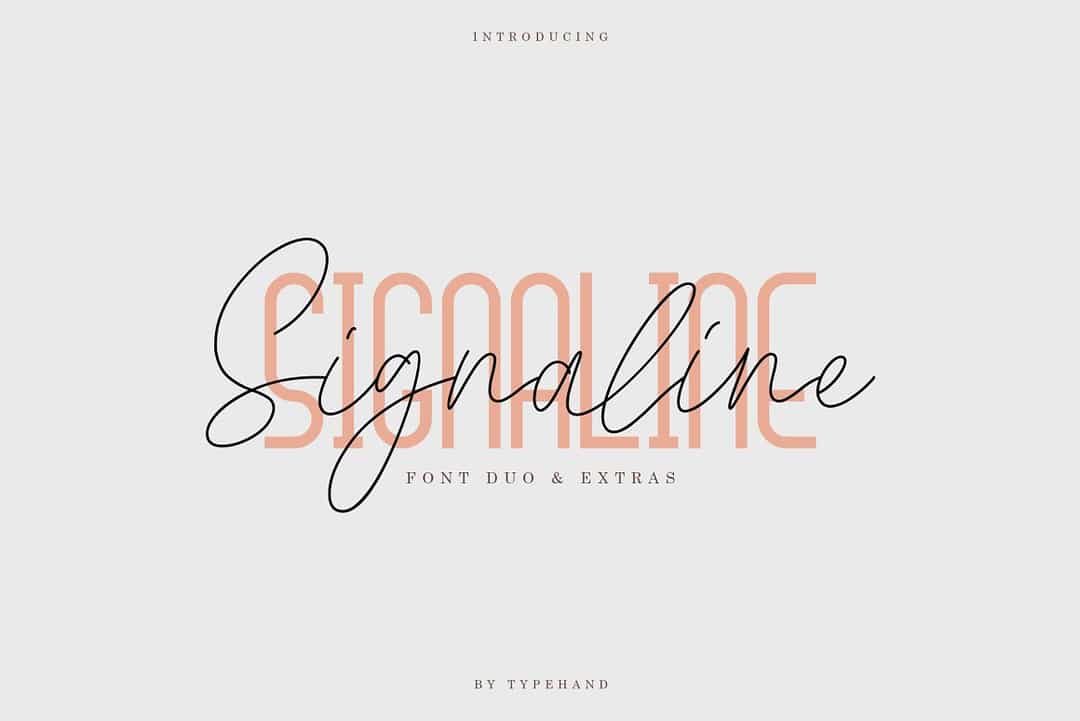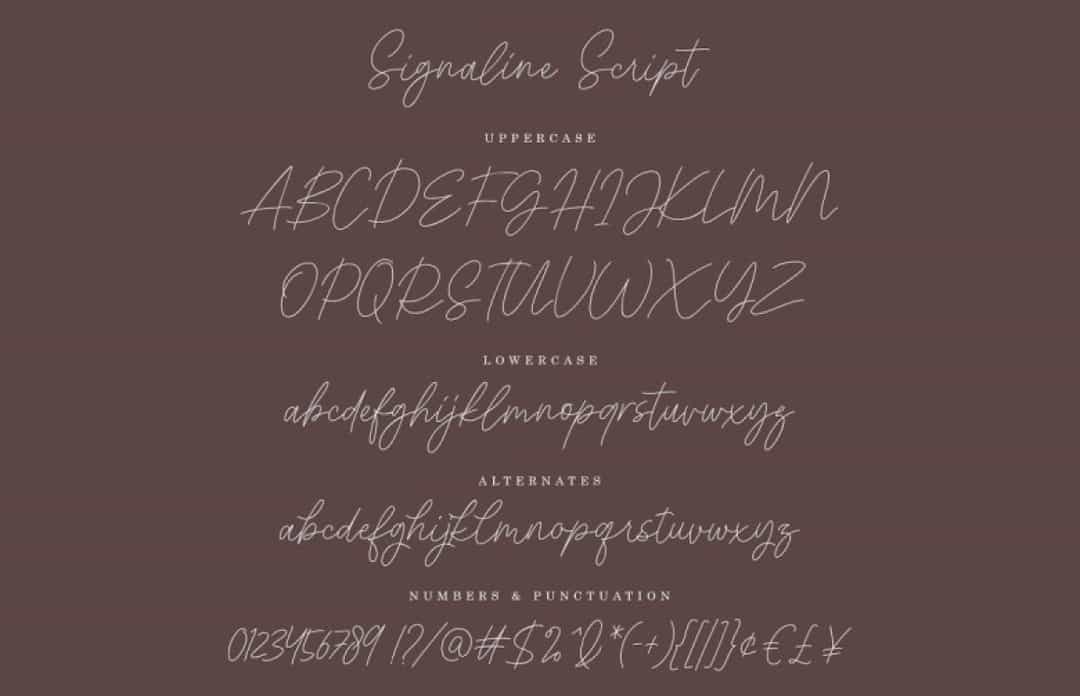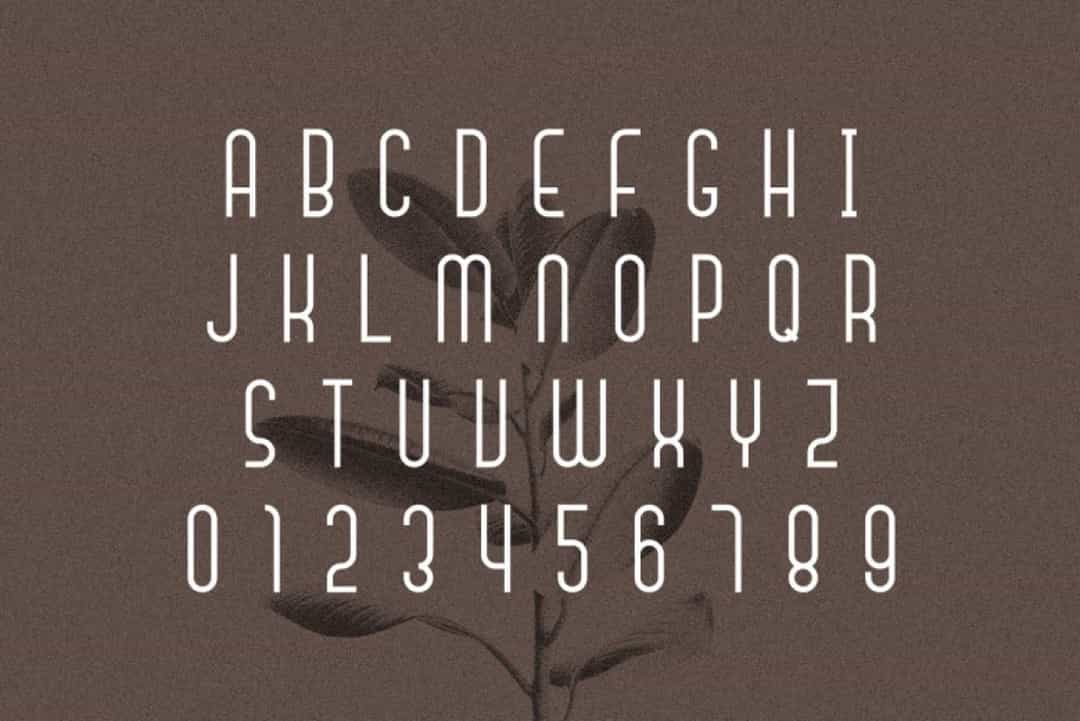
Discover Signaline Font, part of the Sans Serif Handwritten collection—a versatile and unique font perfect for adding a personal touch to your projects. Download it for free and enjoy crafting designs with style, from invitations to social media posts. This font is available exclusively for personal use, giving you the freedom to create without limits. Unlock your creativity with Signaline Font today!
Signaline The Font Duo. Introducing Signaline, designed with handwriting style in mind. Perfect for branding – but also weddings or humorous logo creation – Signaline can create wedding invites, humorous logos and even Liquor Labels and signage!